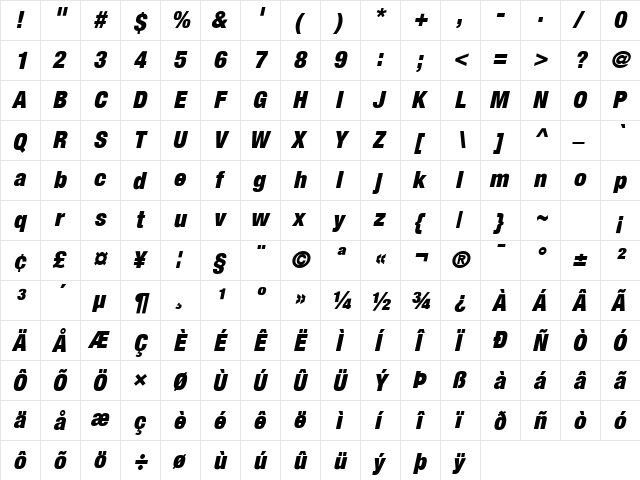
Context Reprise BlackCond SSi Black Condensed Italic Font Preview
Design Context for Context Reprise BlackCond SSi Typeface
Context Reprise BlackCond SSi takes a measured approach to typography — its balanced proportions and neutral character make it a reliable workhorse for both digital and print work. Its italic angle brings a sense of urgency and motion to the letterforms. The condensed width makes it efficient for tight spaces without sacrificing legibility.
Pro Tip: Use Context Reprise BlackCond SSi for emphasis, pull quotes, and subheadings where its slanted energy can add rhythm to the layout.